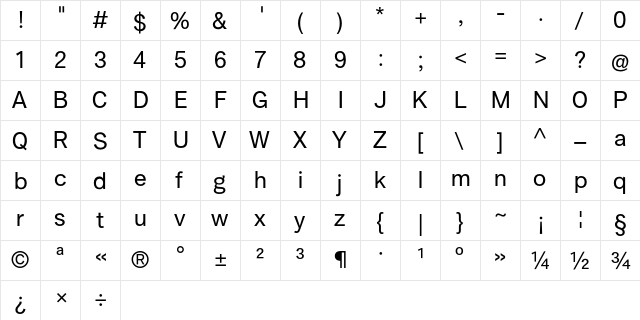
Amurg Regular Font Preview
Amurg Regular
Amurg Regular Font Details
| Designer | Sabina Chipara |
Design Context for Amurg Typeface
Amurg is a composed and adaptable typeface that performs quietly and consistently across a wide range of design contexts.